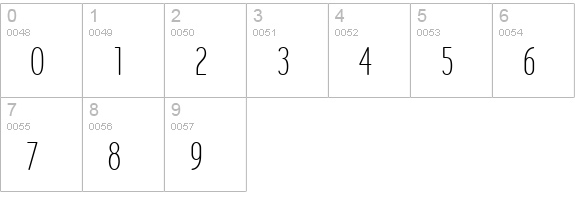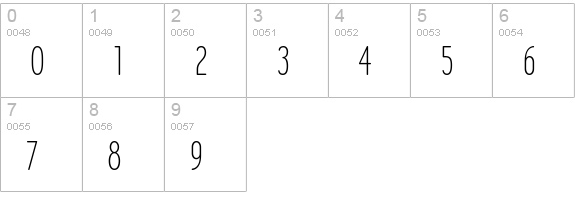
LA Headlights BTN Cond Lt is a distinctive, condensed-width variant in the LA typeface family \xE2\x80\x94 well suited to design and typography projects.
Introducing LA Headlights BTN Cond Lt font, a stunning typeface that captures the essence of the vibrant and dynamic Los Angeles nightlife. With its sleek and modern design, this font is the perfect choice for any project that seeks to exude a sense of energy and sophistication. LA Headlights BTN Cond Lt font is meticulously crafted to showcase the iconic and dazzling allure of LA's illuminated streets. Its condensed and light weight adds a touch of elegance and versatility, making it ideal for a wide range of applications, from advertising and branding to web design and editorial layouts. What sets LA Headlights BTN Cond Lt font apart is not only its exceptional style, but also the fact that it is available for free! That's right, this extraordinary font can be freely downloaded and used for both personal and commercial projects. Say goodbye to expensive font licenses and hello to endless creative possibilities. To get your hands on LA Headlights BTN Cond Lt font, simply head over to FontsMarket.com. There, you can easily access the font and start incorporating it into your designs. So go ahead, embrace the vibrant spirit of LA and let LA Headlights BTN Cond Lt font illuminate your next project with its captivating charm. Download LA Headlights BTN Cond Lt font now and experience the freedom of creativity at FontsMarket.com.